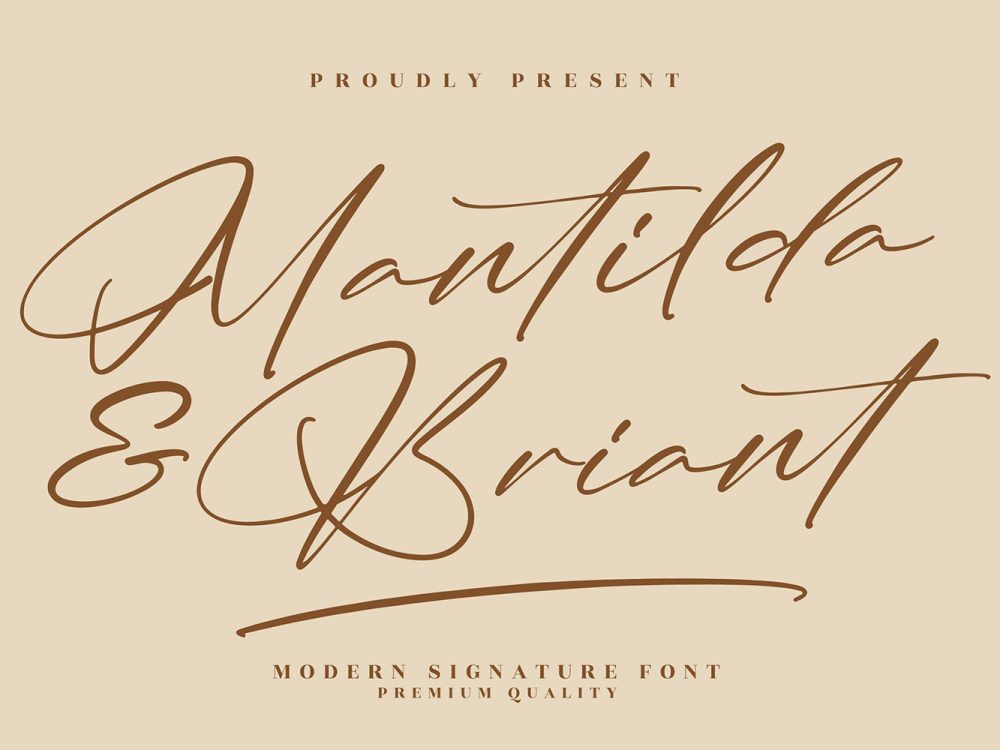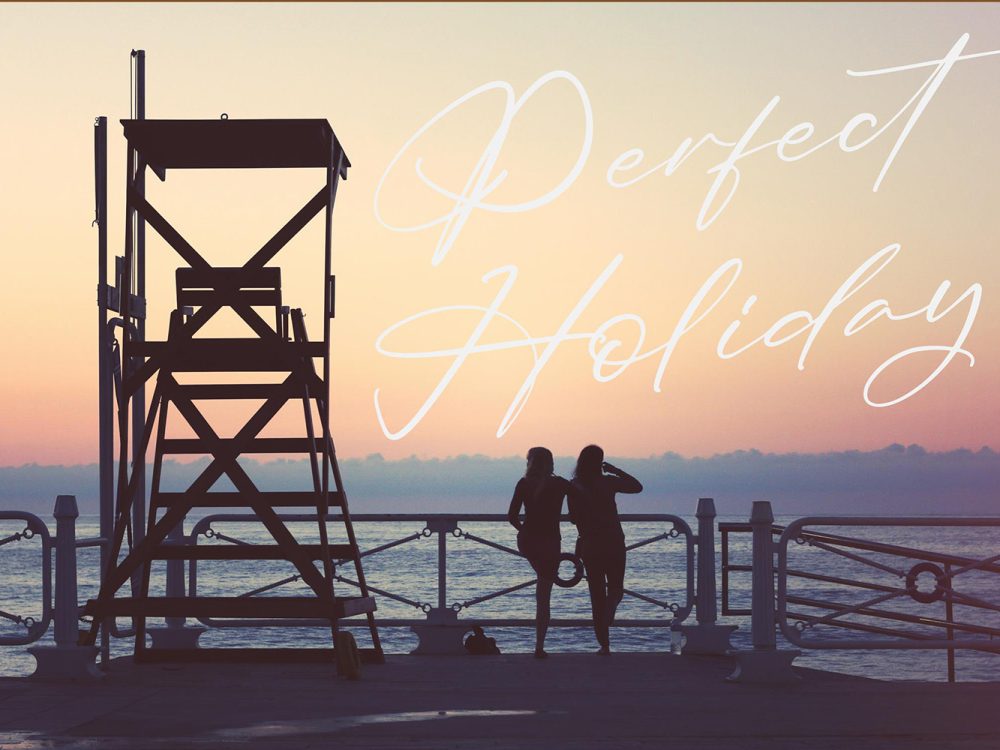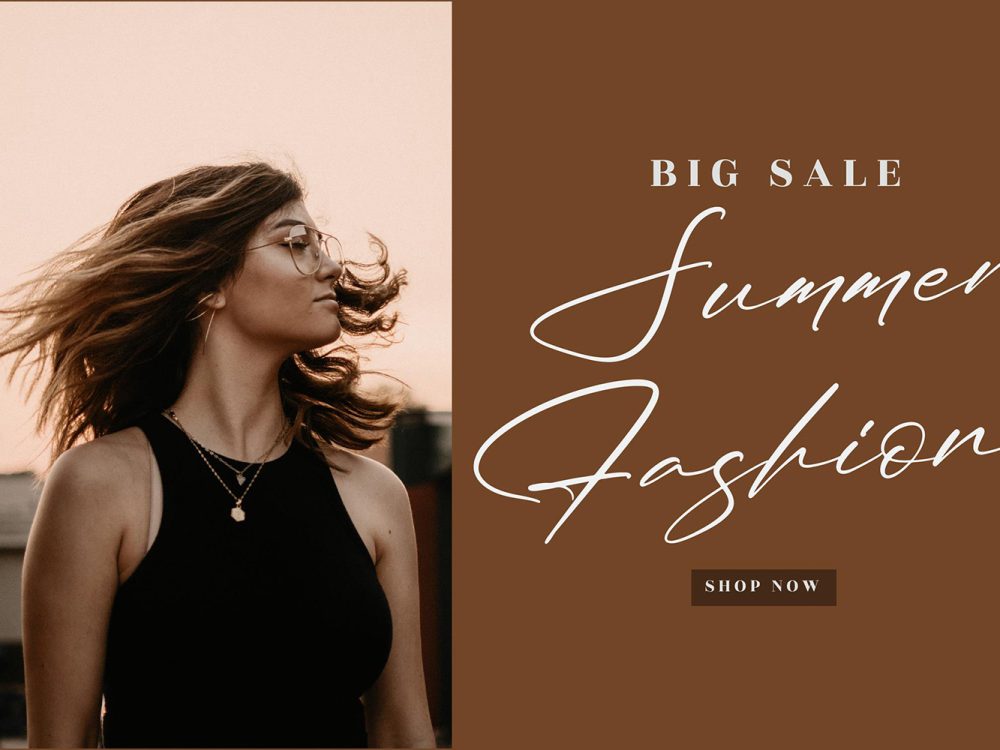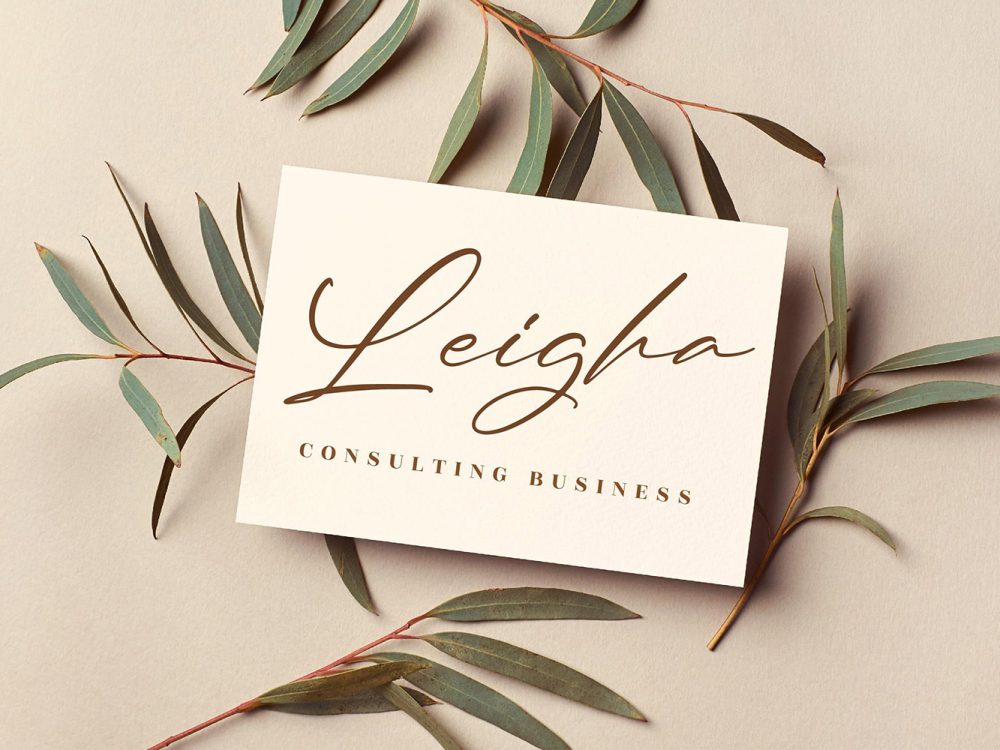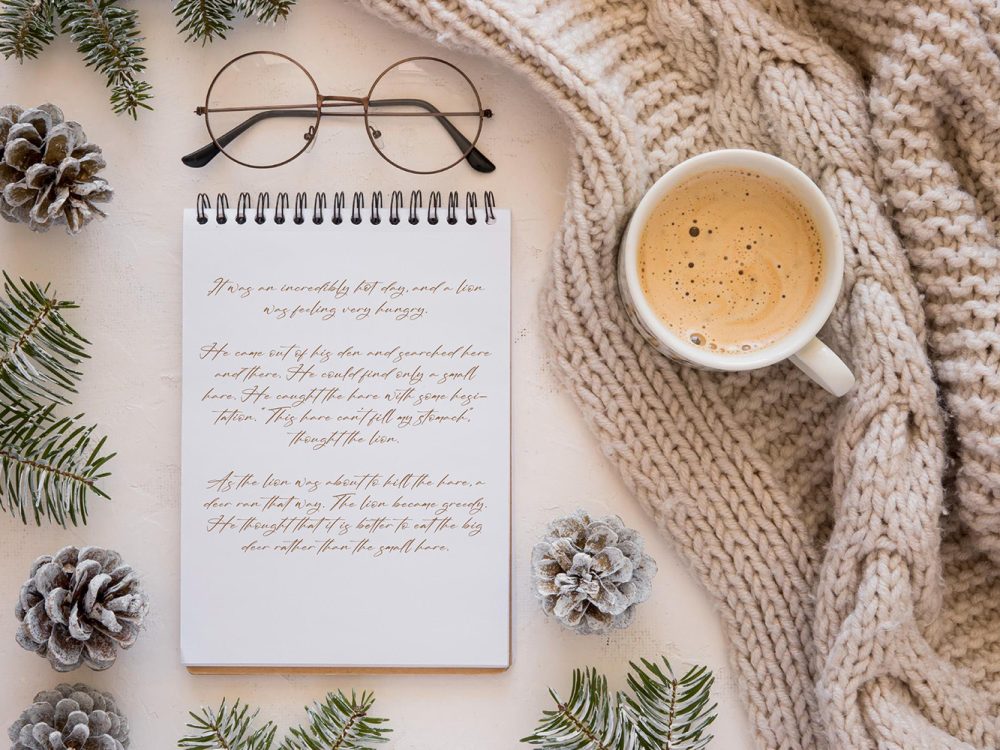
Mantilda & Briant Free Font
Mantilda & Briant Free Font presents a delightful script font, adorned with endearing and playful characters that appear to elegantly dance along the baseline. If you like it don’t forget to check out the full version.